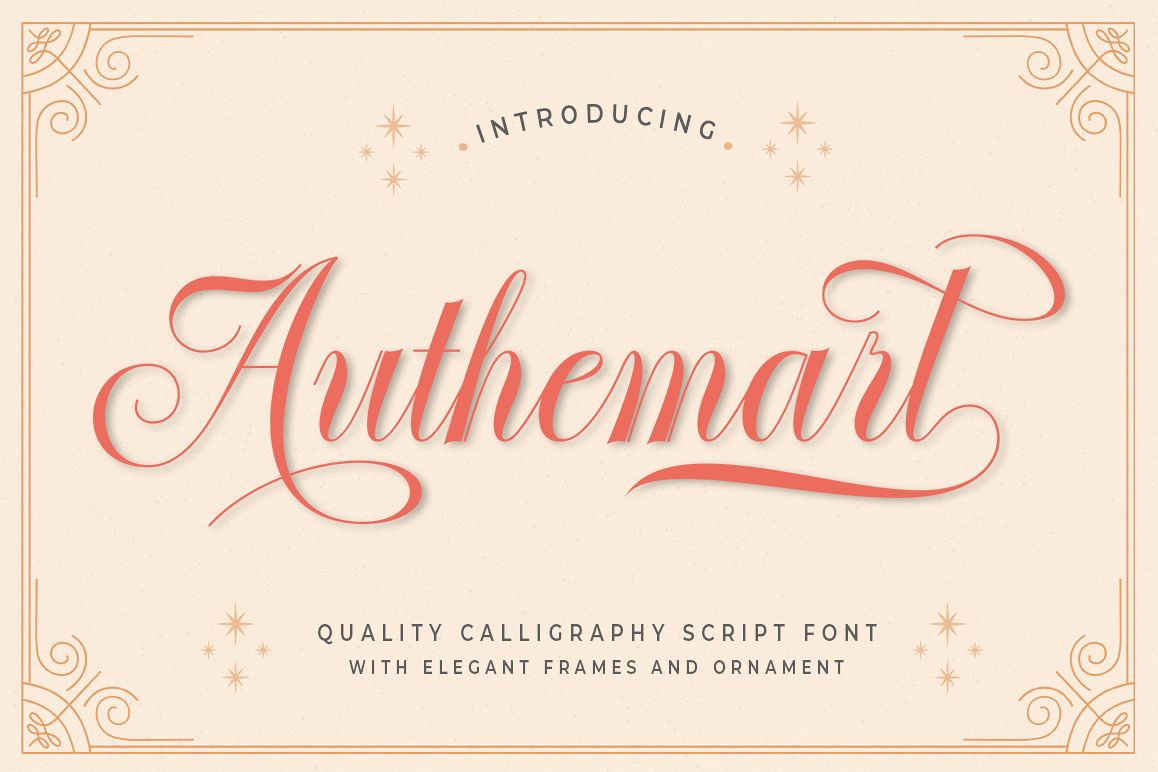
Authemart - Elegant Frames & Ornament
Authemart
AuthemartExtras
Introducing a new quality calligraphy font is Authemart Script. High-quality script fonts come with modern and vintage touches in them. Inspired by a mixture of copper calligraphy with handlettering style. OpenType feature with Stylistic Alternatives, Swash, Ligatures, Stylistic sets. It allows you to mix and match letter pairs to fit your design, and also comes with modern ornaments to make this font look elegant and perfect. Authemart is attractive like a smooth, clean, feminine, sensual, glamorous, simple and very easy to read. The classic style is perfect to be applied in various formal forms such as invitations, labels, menus, logos, fashion, make up, stationery, letterpress, romantic novels, books, greeting / wedding cards, packaging, labels, and more.